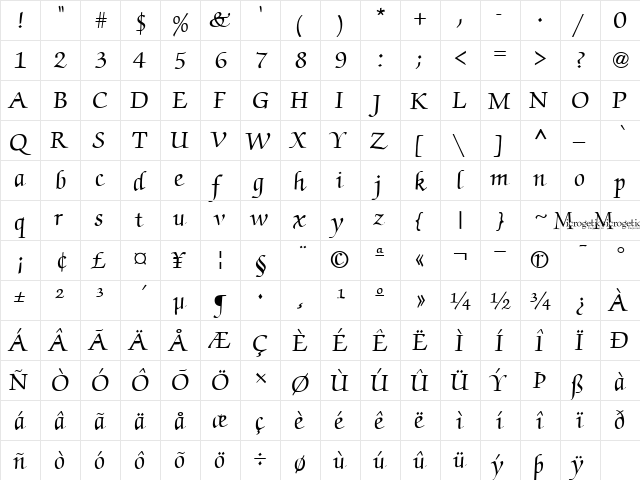
MC Chancellor Medium Regular
Design Context for MC Chancellor Medium Typeface
MC Chancellor Medium is a composed and adaptable typeface that performs quietly and consistently across a wide range of design contexts.